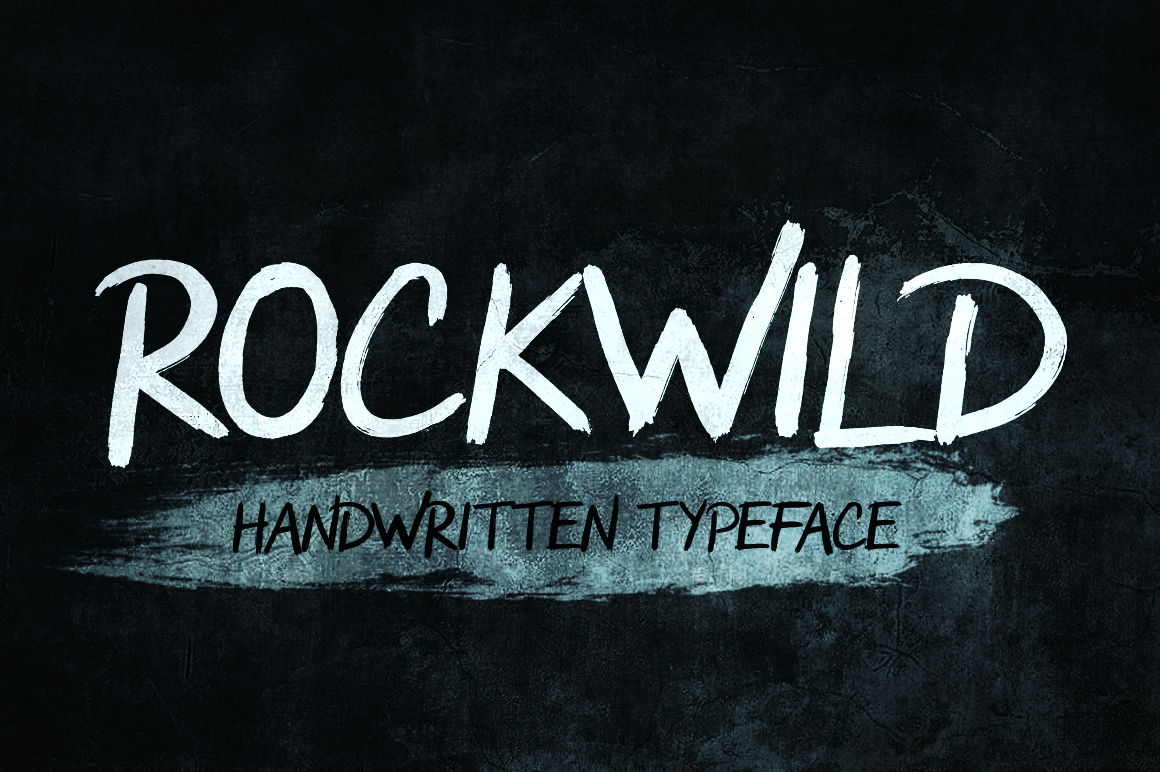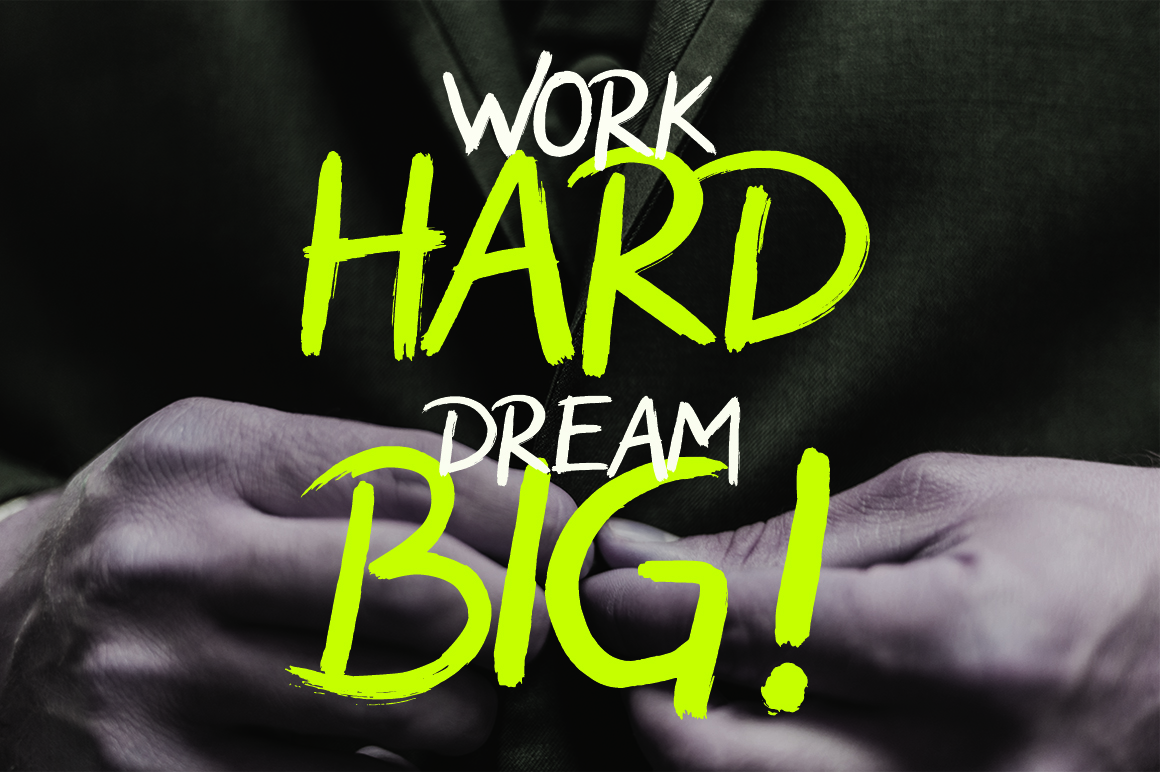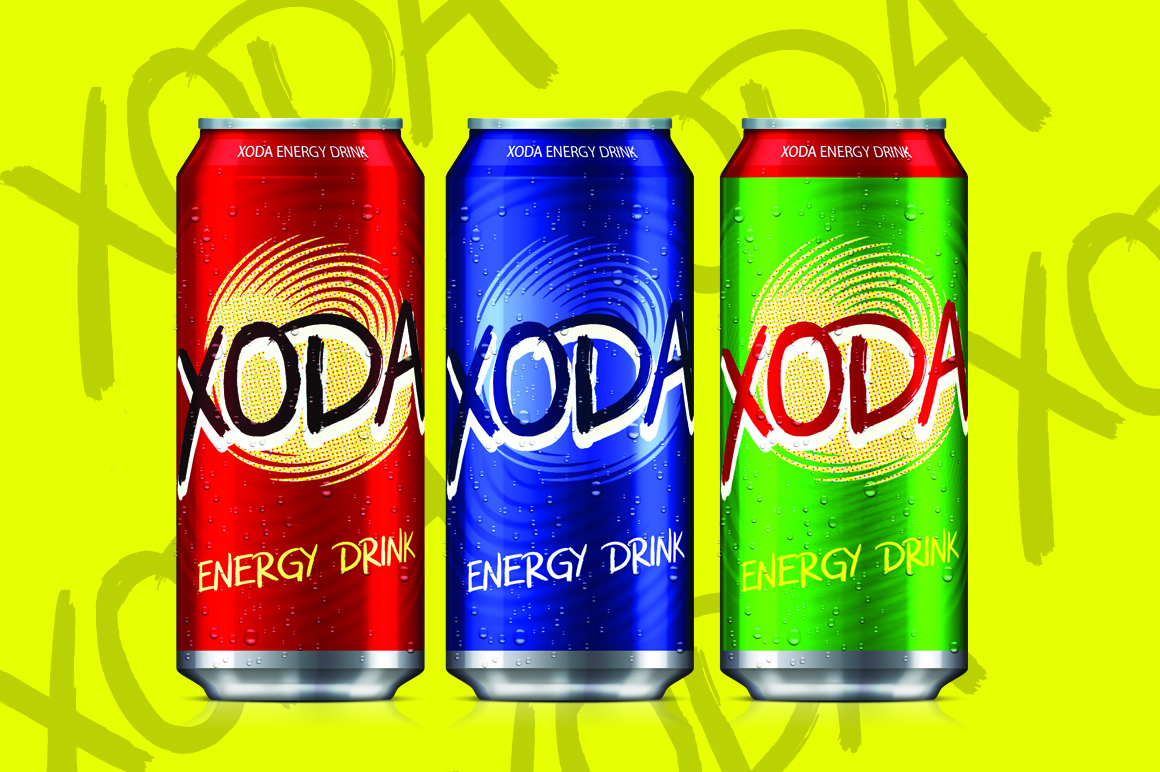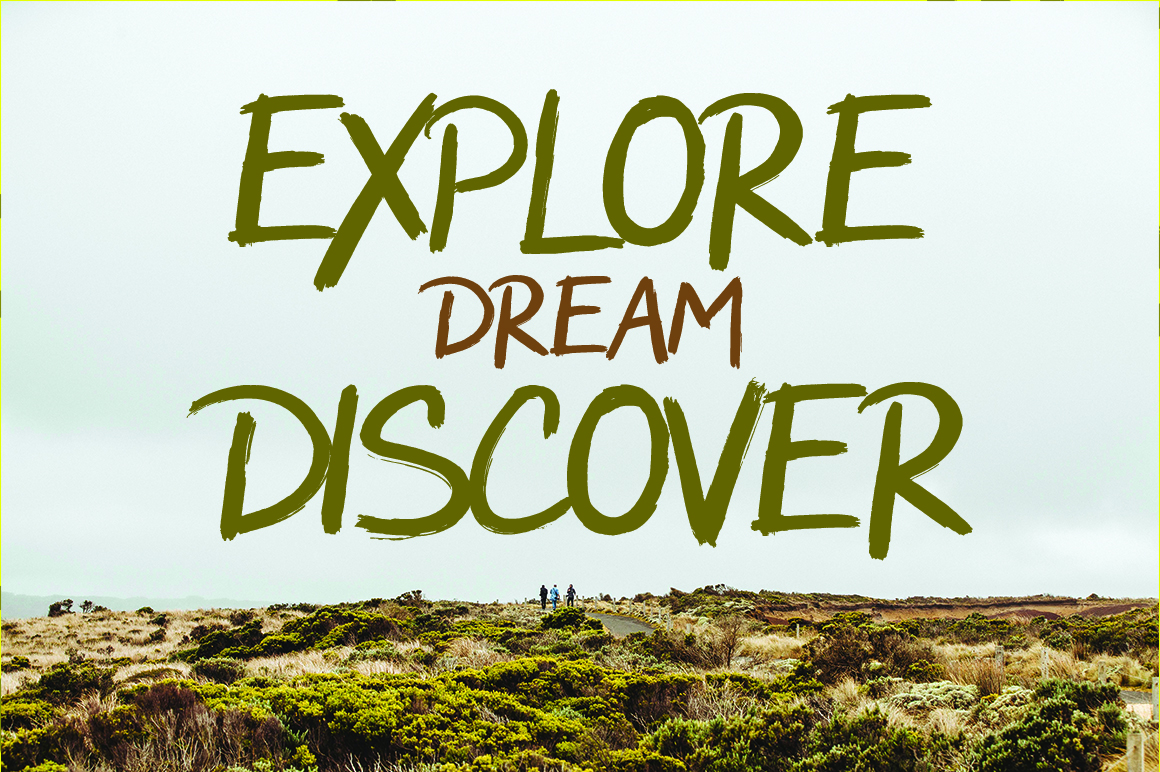
Rockwild Font
Rockwild is a phenomenal and robust hand painted dry brush font. Crafted with rough and bold strokes, this is the perfect workhorse font a large number of projects or designs.